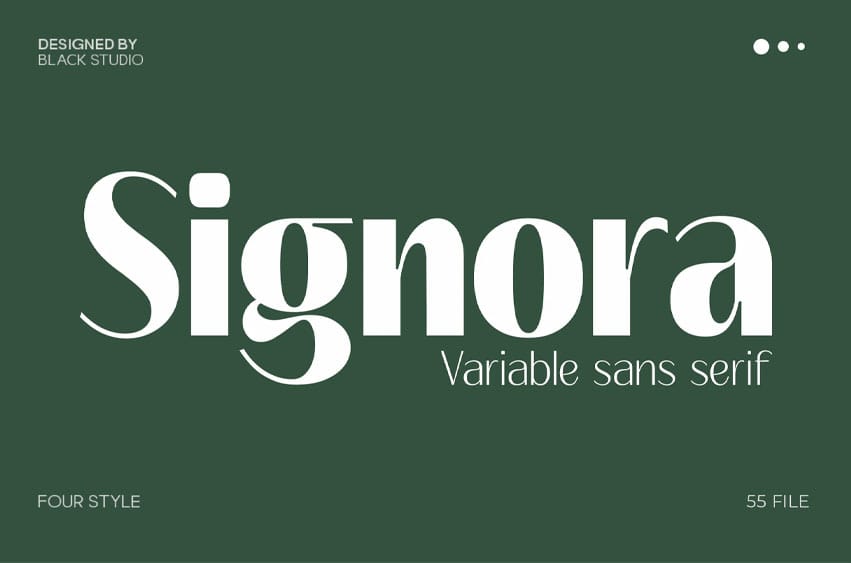
Signora Font Variable Sans Serif is a sophisticated modern typeface that blends contemporary simplicity with refined elegance. Designed with a distinctive high-contrast structure and smooth curves, Signora delivers a luxurious and editorial feel while maintaining exceptional versatility through its variable font technology.
Perfect for branding, fashion campaigns, magazines, packaging, logos, websites, and premium marketing materials, Signora adapts effortlessly to a wide range of creative projects. Its balanced proportions and stylish character make every headline, identity, and visual presentation stand out with confidence and elegance.
Key Features
- Variable Font Technology
- 4 Distinct Styles
- Multiple Weights & Widths
- Uppercase & Lowercase Characters
- Multilingual Language Support